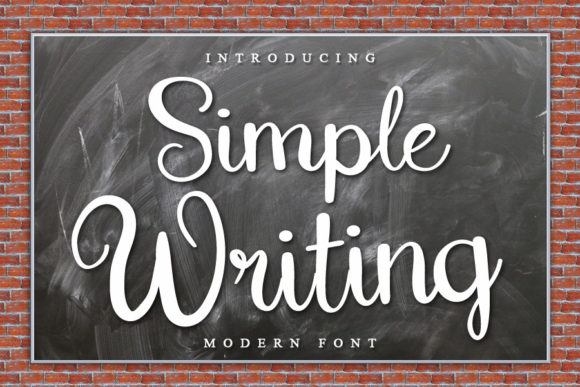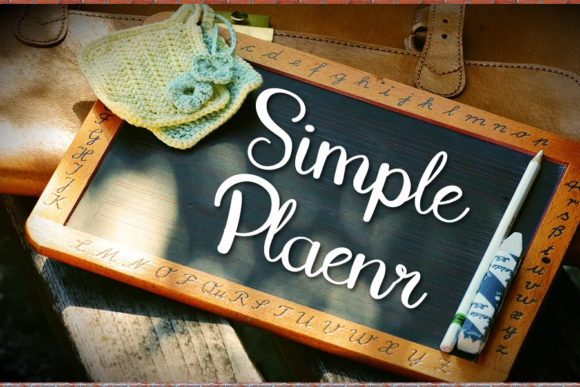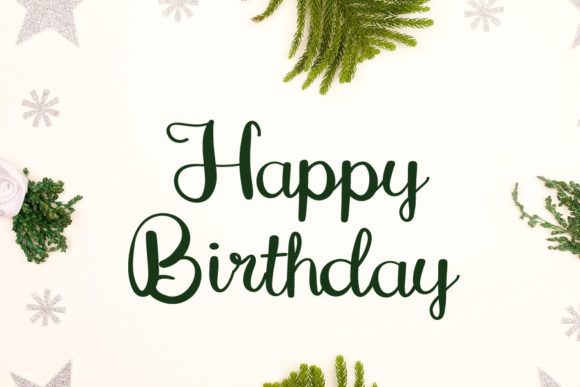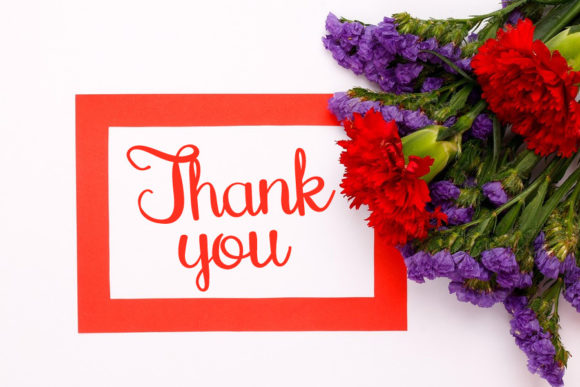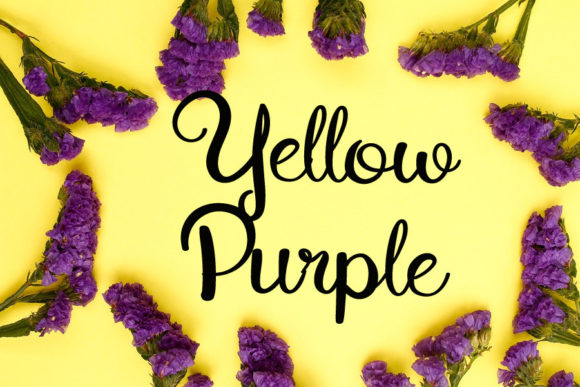
Simple Writing Font
About Simple Writing Font
Simple Writing is a clean and stylish script font. Fall for its ravishing style and use it to create gorgeous wedding invitations, beautiful stationary art, eye-catching social media posts, and much more!